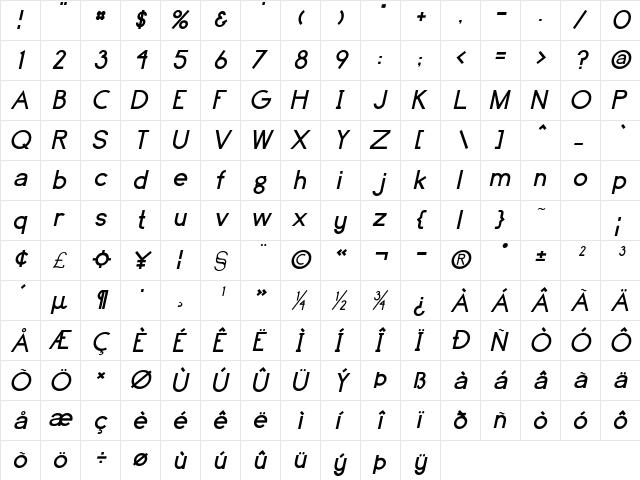
CobellSSK Italic
Design Context for CobellSSK Typeface
CobellSSK offers clean, dependable letterforms without strong stylistic allegiance, making it a practical choice for designers who need flexibility. The dynamic lean of this cut emphasises speed and emphasis in any layout.
Pro Tip: Use CobellSSK for emphasis, pull quotes, and subheadings where its slanted energy can add rhythm to the layout.